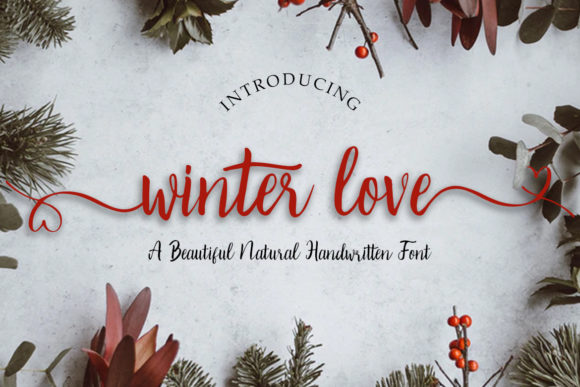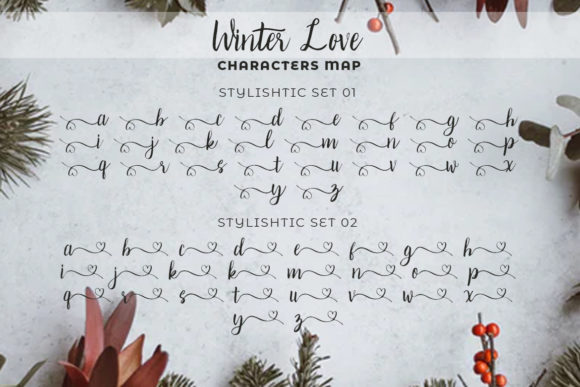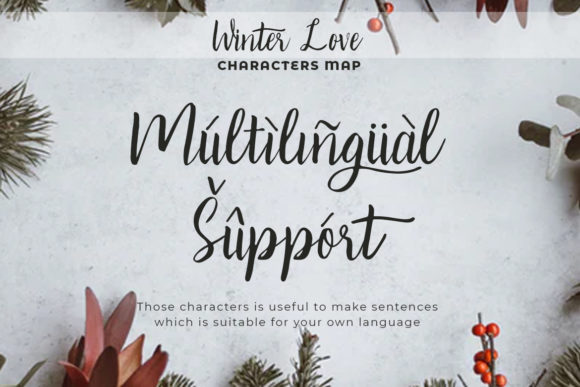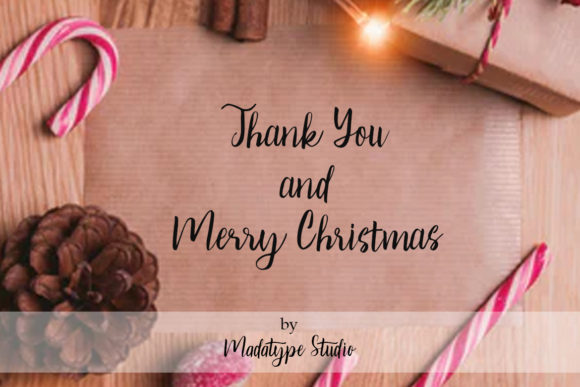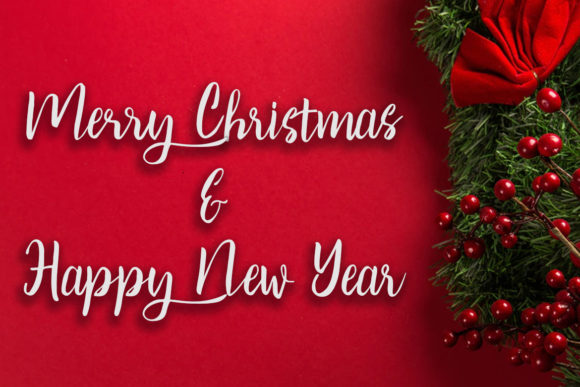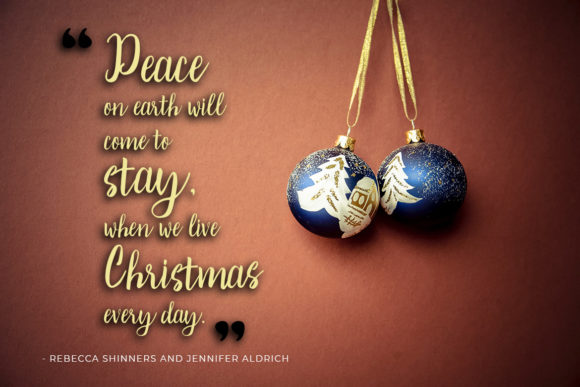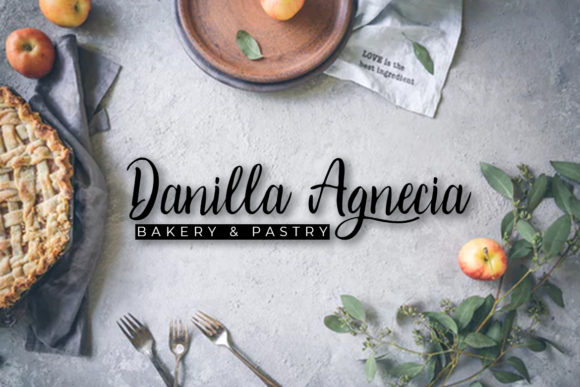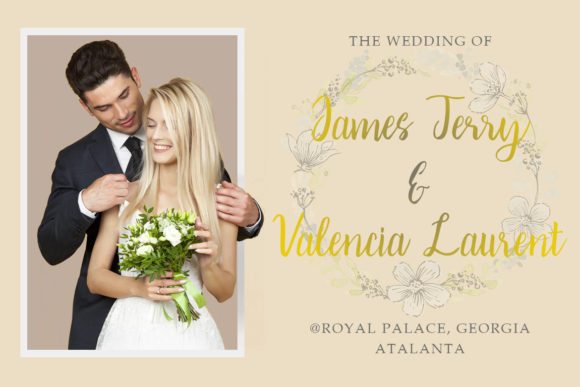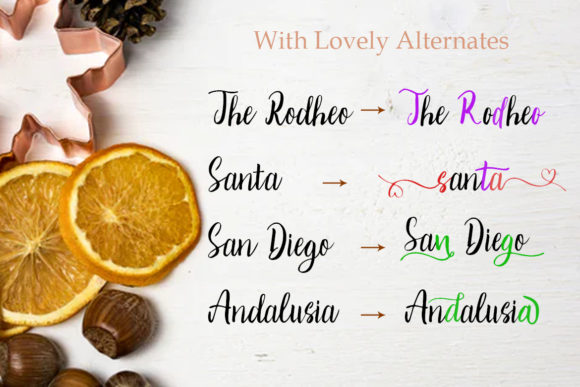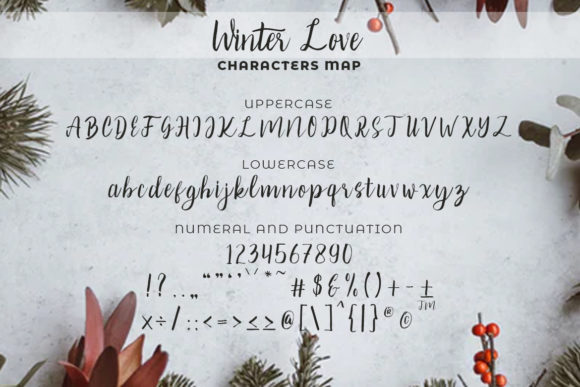
Winter Love Font
About Winter Love Font
Winter Love is a script font with a natural handwritten feel. It has lovely ligatures and alternates that are perfect for any creative design.